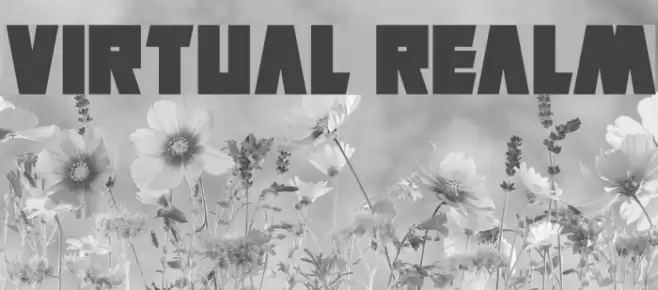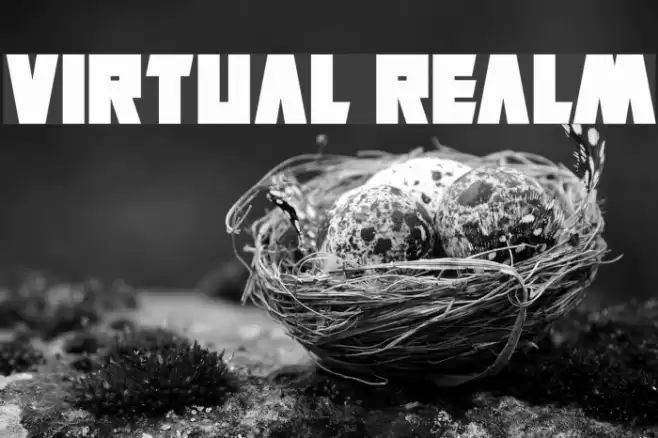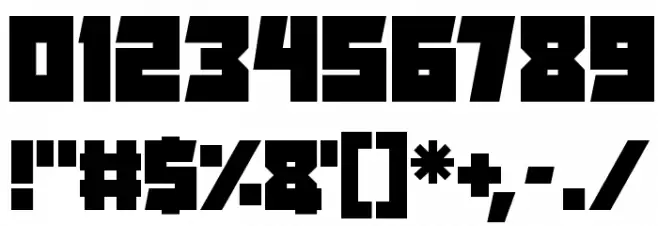
Virtual Realm Font
Virtual Realm Description
This font features a bold, geometric design with sharp angles and a strong presence. The characters are blocky and wide, giving a sense of stability and strength. The uppercase and lowercase letters share a consistent style, maintaining the boldness throughout. Numbers and special characters are equally robust, making them stand out prominently. The font's design is reminiscent of futuristic or sci-fi themes, with a modern twist that makes it suitable for digital and tech-related projects. Its heavy weight and angular shapes make it ideal for attention-grabbing headlines or logos.
A bold, geometric font with a futuristic and strong design from Uncategorized fonts.
- Proposed Projects: Ideal for sci-fi movie posters, tech company logos, video game titles, and digital media branding.
- Width: Expanded
- Overall Style: Futuristic